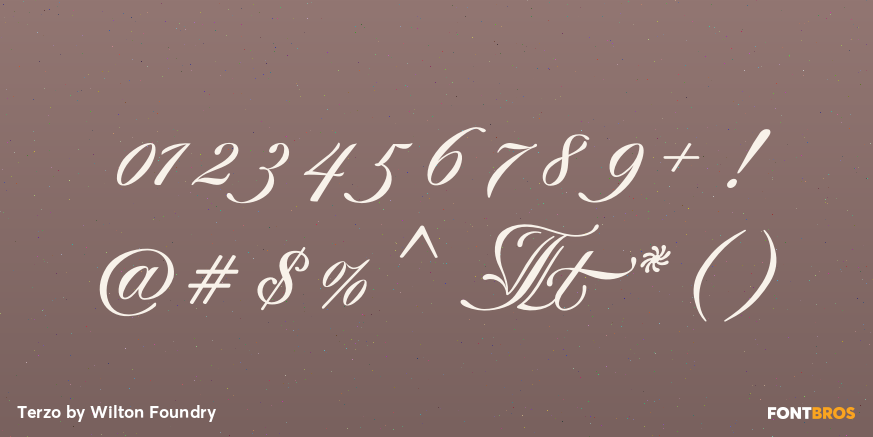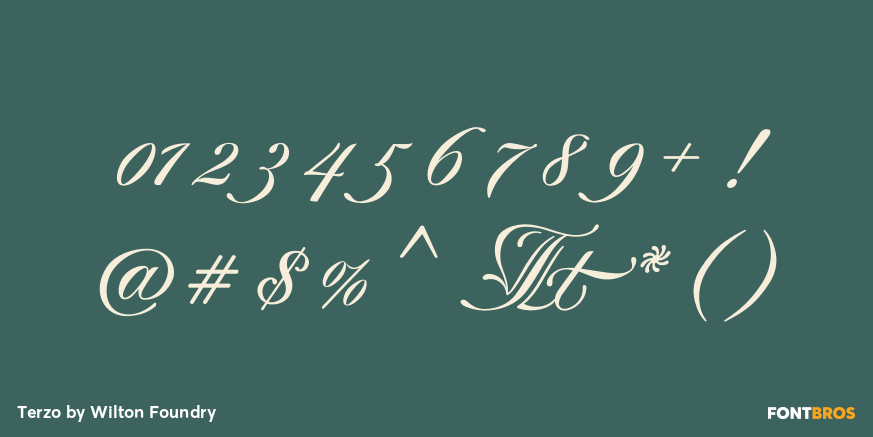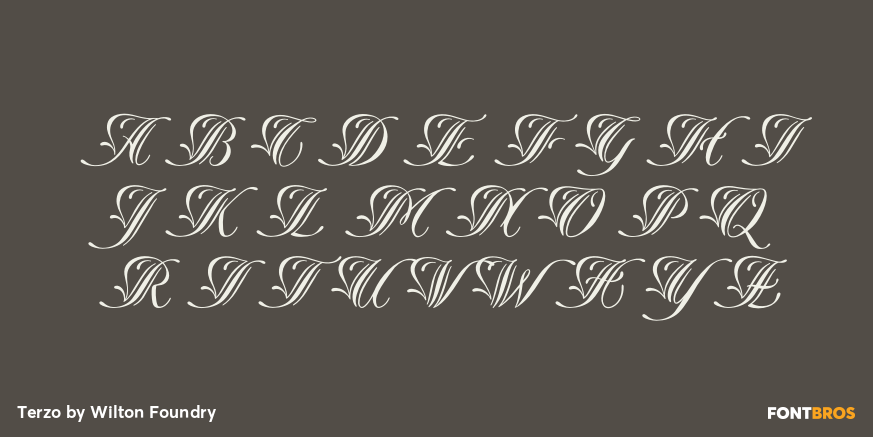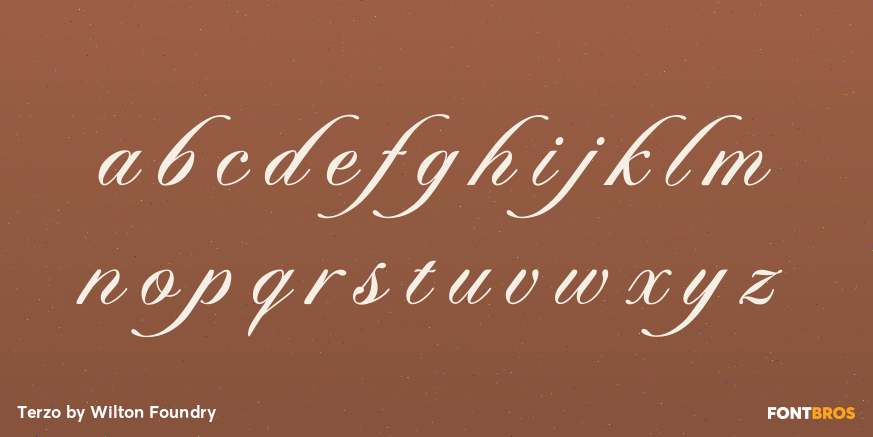
Terzo
Font Family by Wilton Foundry
Terzo uses three lines in the main stem of the capitals resulting in an interesting display of script capitals. Flourishes are uniquely positioned and are deliberately minimalist in order to feature the three part stem capitals. Lowercase characters are also strong enough not to be dominated by the capitals. The overall result is a well balanced and refreshing script that will serve many purposes!